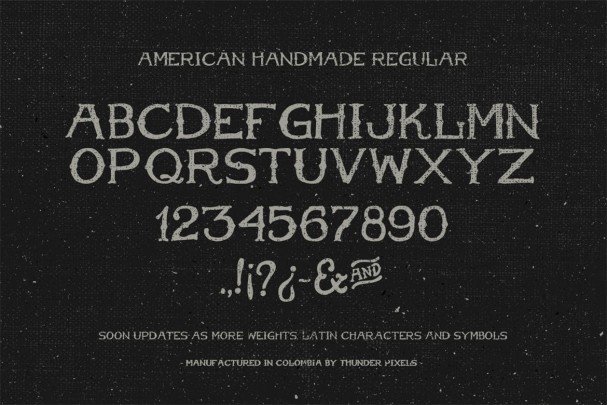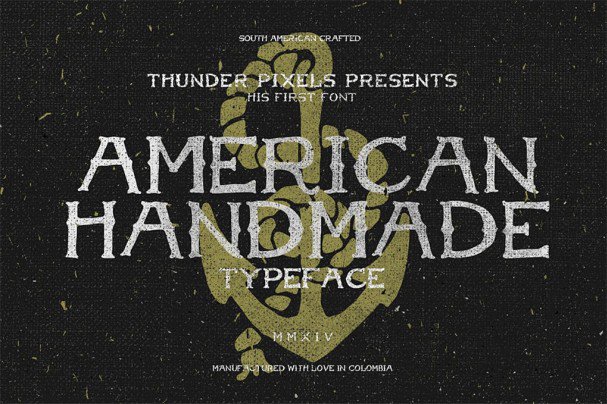
American Handmade Typeface Font
Right here is the American Handmade Typeface Font is known as the nice text generator. Additionally acknowledged for its use in creative marketing. This is similar to the legend typeface. Those are hand-drawn fonts absolutely supply off a real private contact for your tasks.
Meet hasty fashionable font this is right for several duties together with the editorial format, branding, paintings quote, apparel layout, and so forth. A candy cane font this is right for several projects which include product packaging, label, ebook/cowl apprehend, poster, specific events, and loads extra. Download The general public of the designers has been using it for his or her very personal systems. And a few others are taking it as an idea for making new typefaces.